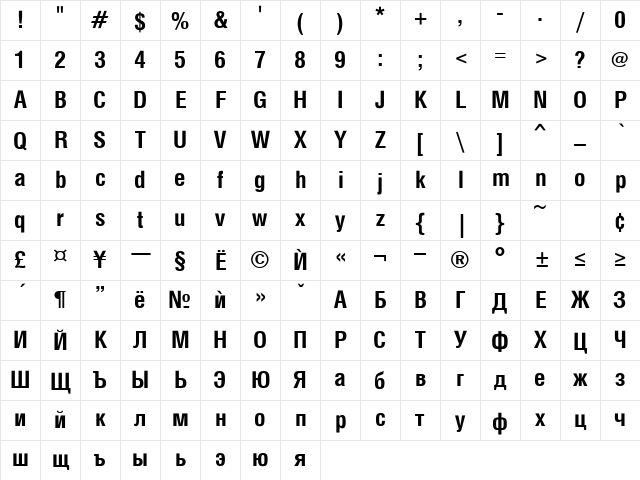
HebarCond Bold
Design Context for HebarCond
HebarCond is a composed and adaptable typeface that performs quietly and consistently across a wide range of design contexts. Its bold stroke weight gives it real presence on the page. Its narrow stance lets it pack a punch even in space-constrained designs.